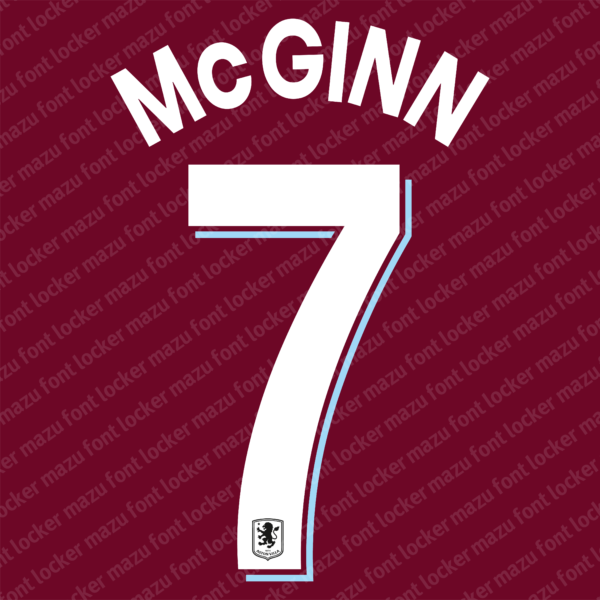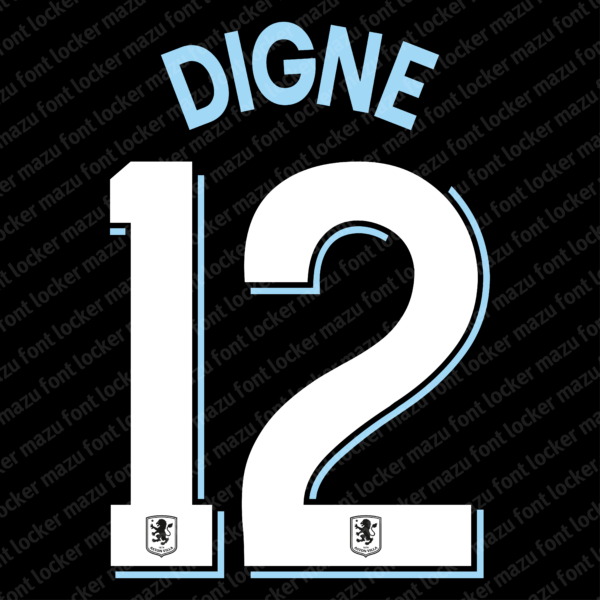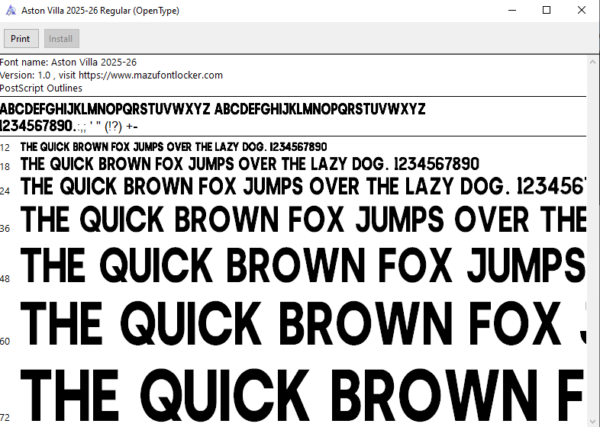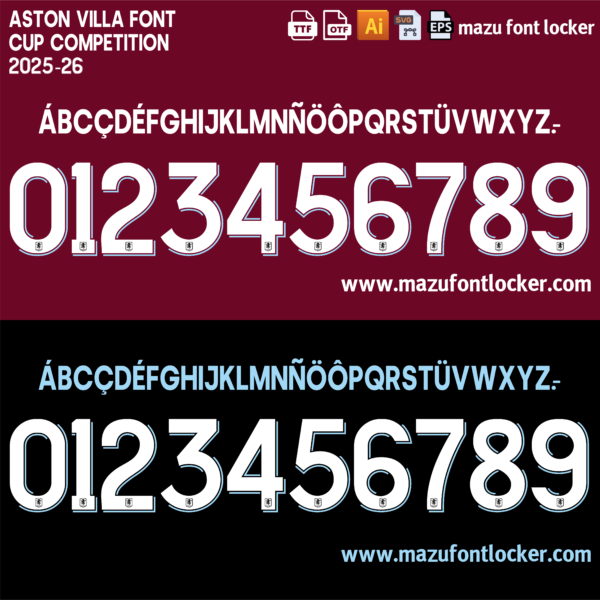
Aston Villa 2025-26 Font Vector – Stunning Premier League Return
Aston Villa 2025-26 Font is a high-quality football jersey font vector designed to replicate the official lettering and numbering style used during the 2025/26 season. This Aston Villa 2025-26 font is perfect for designers, football fans, and creators who want accurate and professional jersey customisation.
Inspired by the official kit of Aston Villa, this Aston Villa 2025-26 font delivers a clean and authentic match-day appearance. Every letter and number has been carefully recreated to match the real jersey design, ensuring your projects look realistic and professional.
Aston Villa 2025-26 Font Font Vector – Authentic Jersey Lettering
Aston Villa 2025-26 Font font is a high-quality football jersey font vector created to replicate the official lettering and numbering style used during the iconic 2025-26 Season. Perfect for designers, football fans, and jersey customisation projects, this font set delivers an authentic and professional match-day appearance.
Inspired by the original Aston Villa 2025-26 team kit, every letter and number has been carefully recreated to ensure accurate retro styling for both digital and print projects.
• Authentic Aston Villa 2025-26 jersey lettering style
The authentic lettering style helps recreate the classic look of the Aston Villa 2025-26 kit with professional accuracy.
Unlike generic jersey fonts, this set is designed with a strong focus on authenticity and accuracy. Every detail is based on the original match lettering style used during the 2025-26 season, helping designers and collectors create realistic football shirt designs.